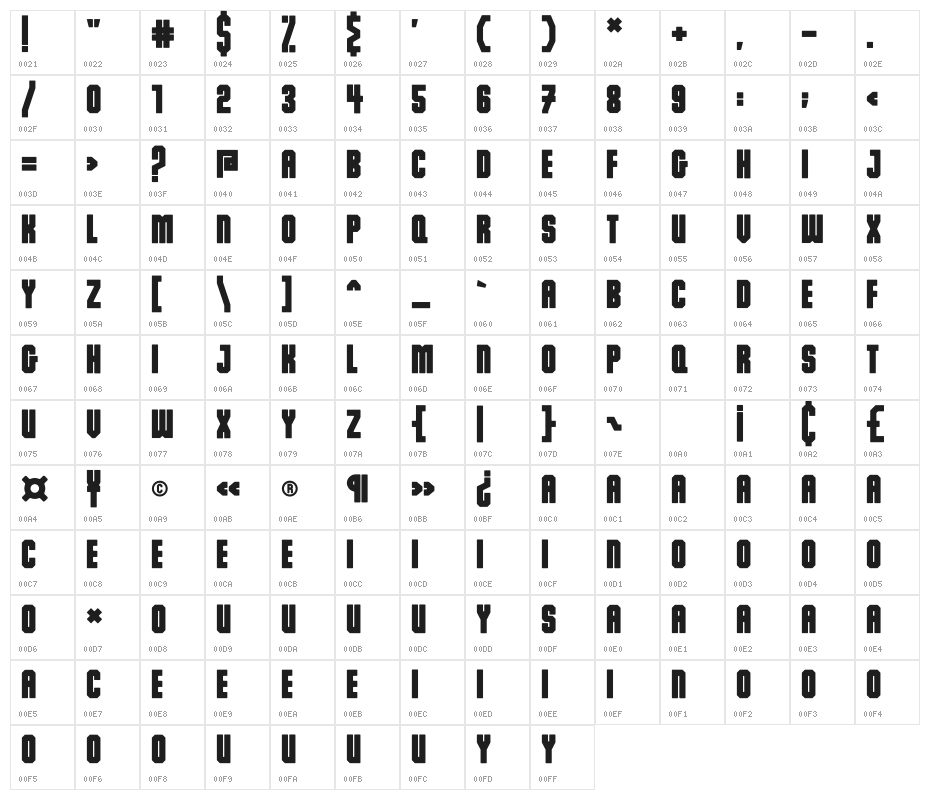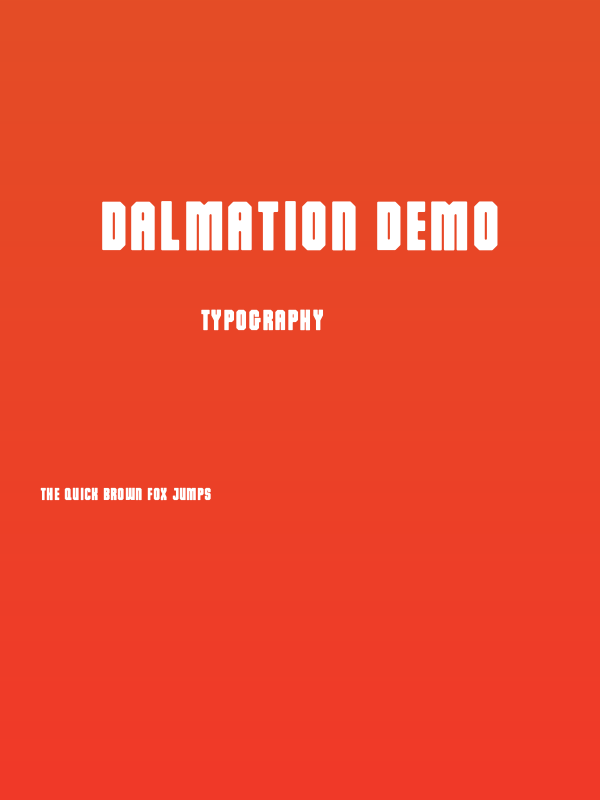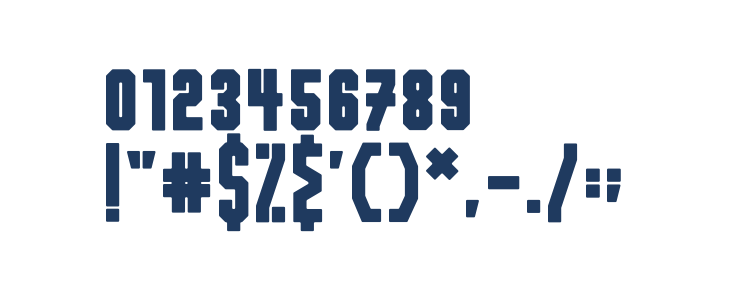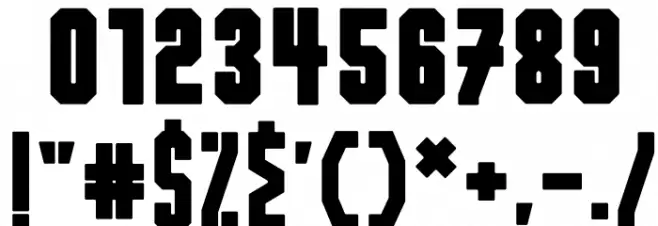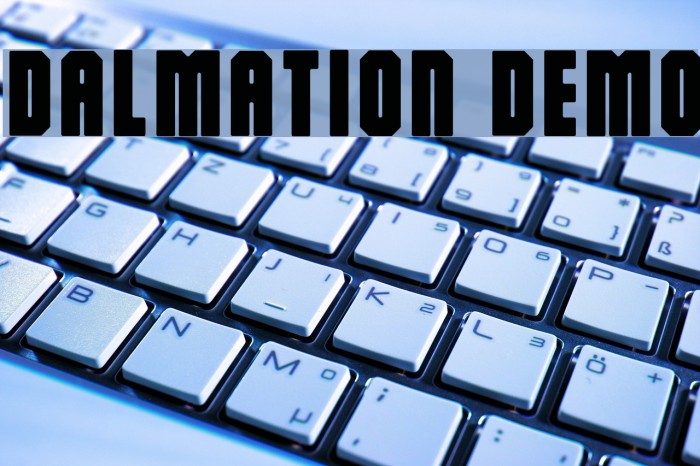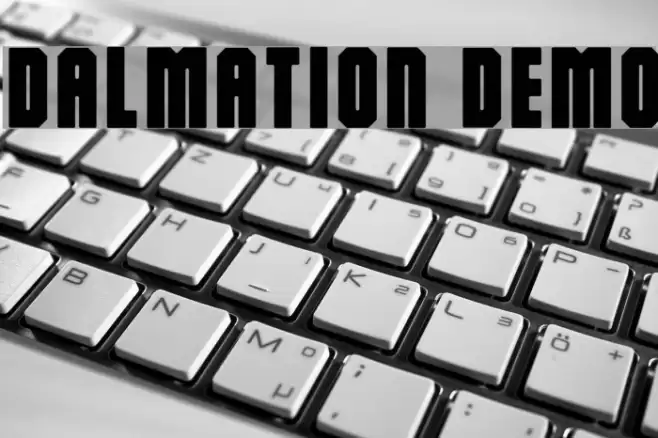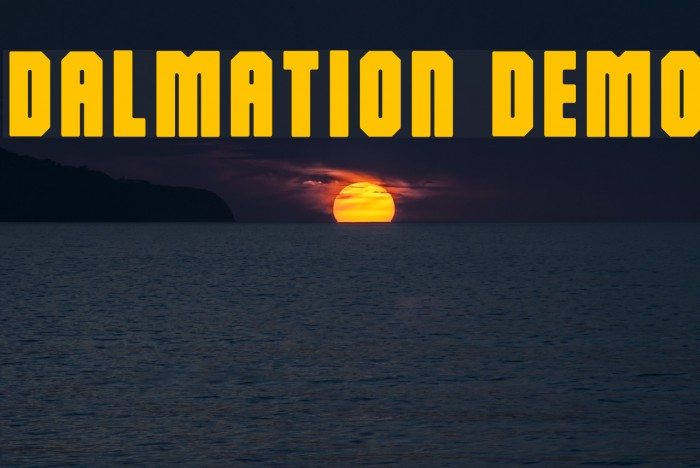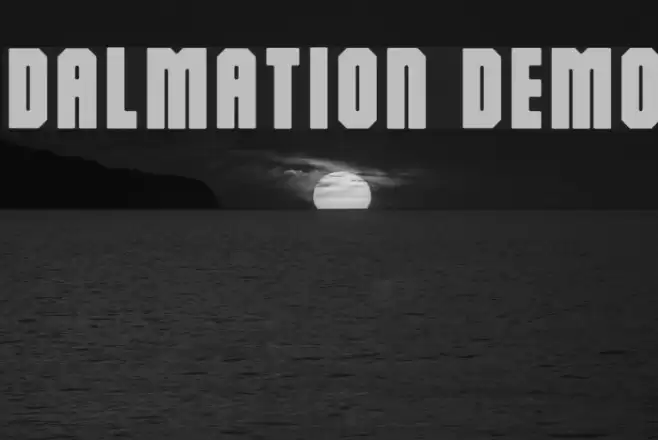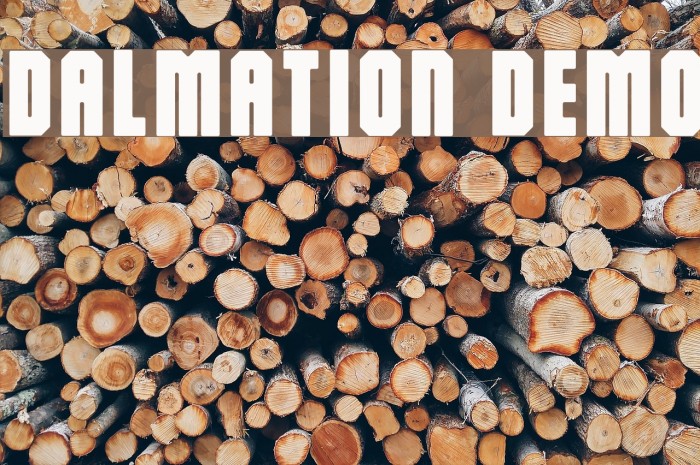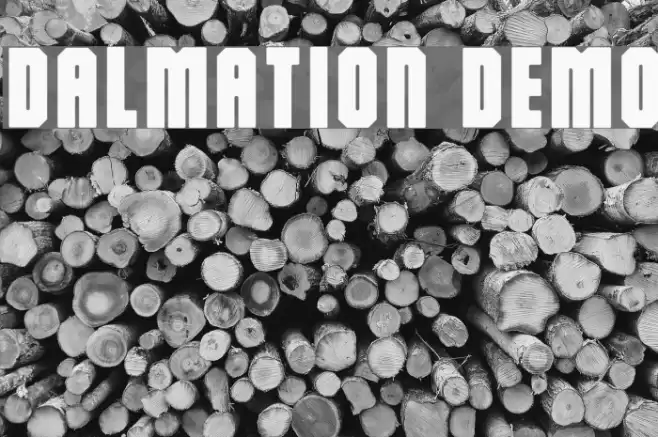
Dalmation Demo Font
Dalmation Demo Description
This font features a bold, geometric design with strong, angular lines and a blocky appearance. The uppercase and lowercase letters maintain a consistent height, creating a uniform look across the text. The characters are tightly spaced, enhancing the compact and impactful nature of the font. The numbers and special characters follow the same bold and angular style, ensuring a cohesive appearance throughout. This font's distinct and robust design makes it suitable for creating a strong visual impact.
| Proposed Projects | Ideal for posters, headlines, branding, and any project requiring a strong visual impact. |